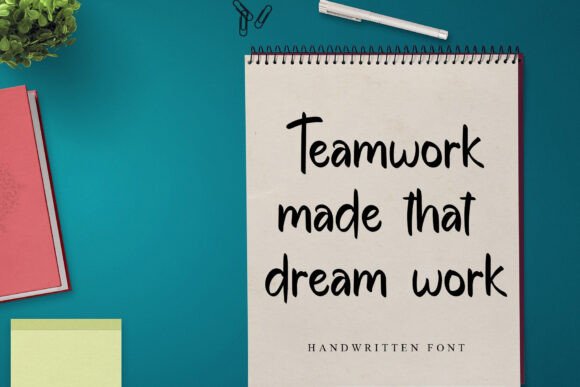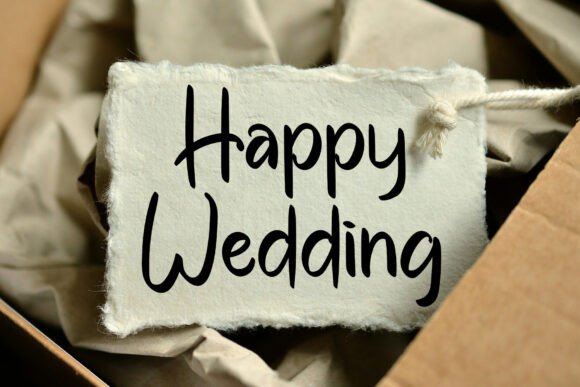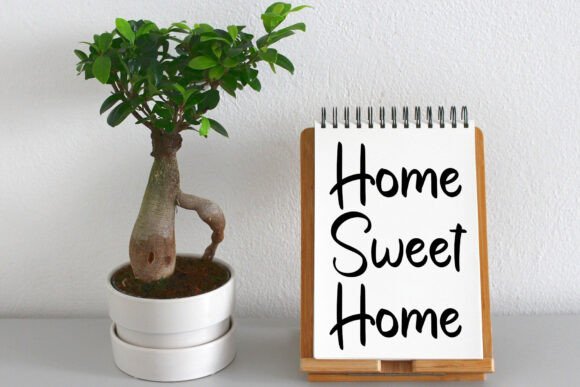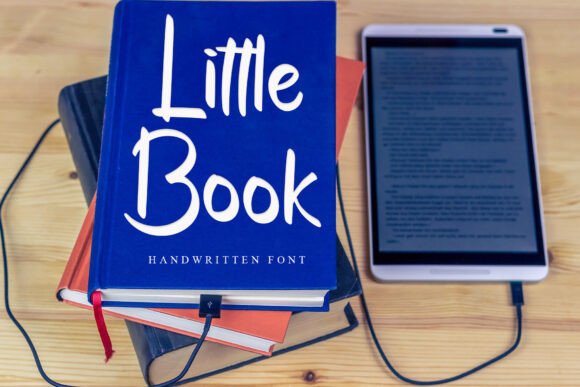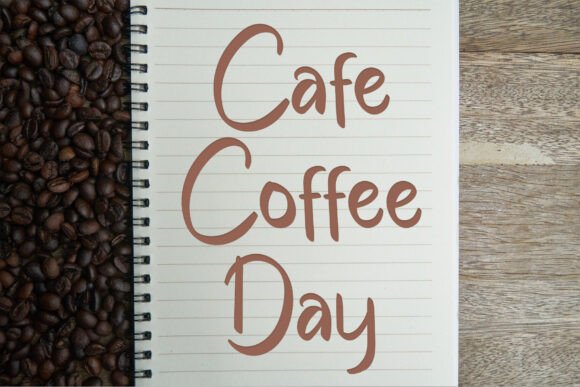
Dress Shop Font: Elevate Your Designs with Elegance and Sophistication
Are you tired of using the same old fonts for your design projects? Look no further! Introducing the Dress Shop Font, a unique and elegant font specially designed to add a touch of sophistication to your work. This font is crafted with a professional hand touch, making it perfect for a wide range of projects, from wedding invitations to school assignments.
What Makes Dress Shop Font Special?
The Dress Shop Font is made with love and care, ensuring that every detail is meticulously crafted to provide an exceptional user experience. This font is not just a collection of letters; it’s an artistic creation that will make your designs stand out from the crowd. With its elegant and refined appearance, this font is ideal for:
- Wedding invitation cards
- Birthday party invitations
- All types of party invitations
- School assignments and projects
- Greeting cards and more
Why Choose Dress Shop Font?
There are many reasons why you should choose the Dress Shop Font for your design projects. Here are a few:
- Unique and Elegant: This font is designed to add a touch of elegance and sophistication to your designs.
- Professional Hand Touch: The font is crafted with a professional hand touch, ensuring that every letter is perfect.
- Versatile: The Dress Shop Font is suitable for a wide range of projects, from wedding invitations to school assignments.
- Pair it with Other Fonts: Experiment with pairing the Dress Shop Font with other fonts to create a unique and interesting design.
- Use it for Headings: The Dress Shop Font is perfect for headings and titles, adding a touch of elegance to your designs.
- Experiment with Colors: Try using different colors with the Dress Shop Font to create a design that’s truly unique.
The Dress Shop Font is a valuable resource for designers and crafters. Here are some benefits of using this font:
- Increase Creativity: The font’s elegant and refined appearance can inspire your creativity, helping you to come up with new and innovative design ideas.
- Enhance Your Designs: The Dress Shop Font can elevate your designs, adding a touch of sophistication and elegance.